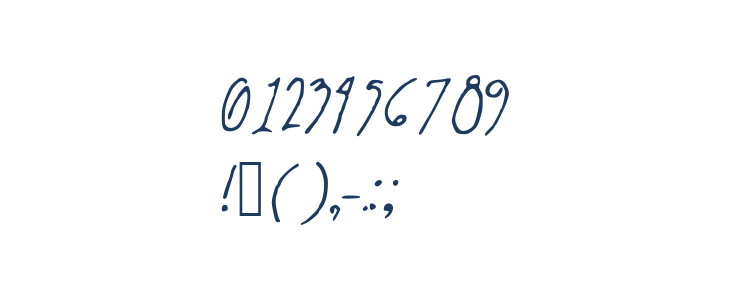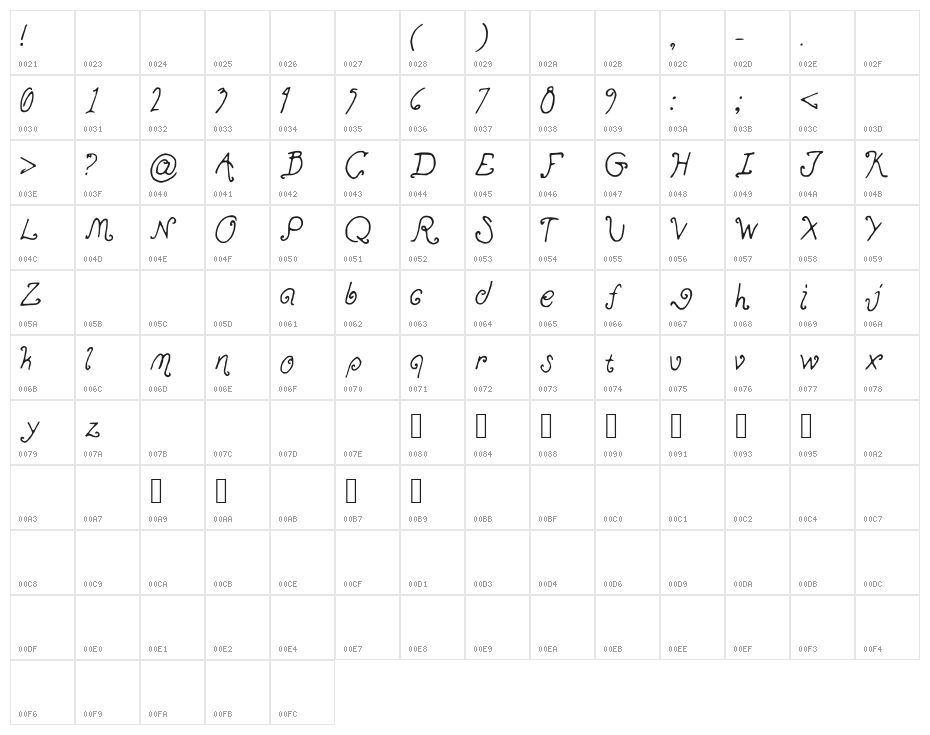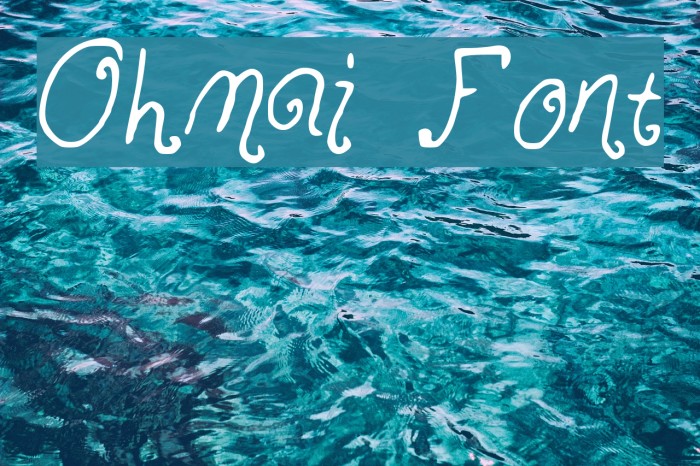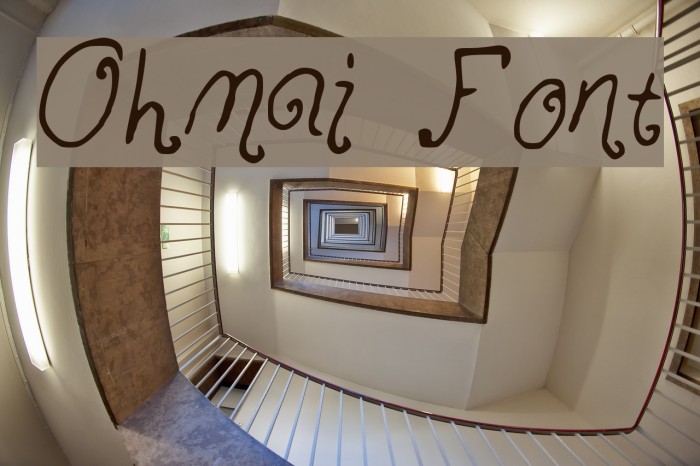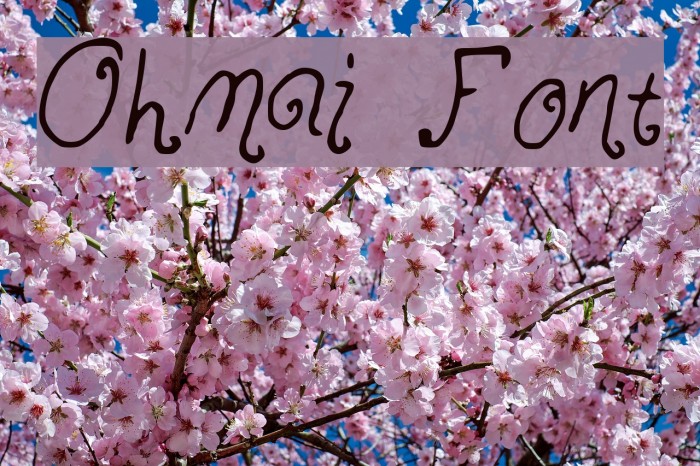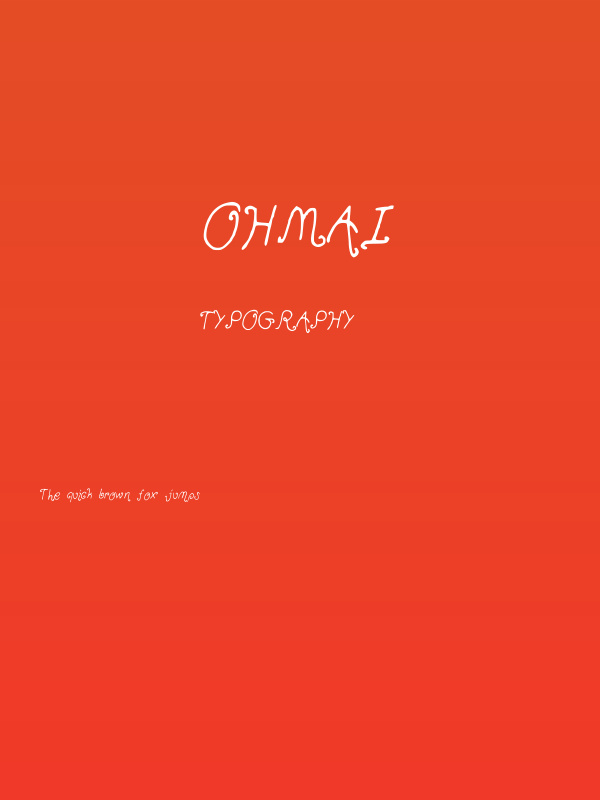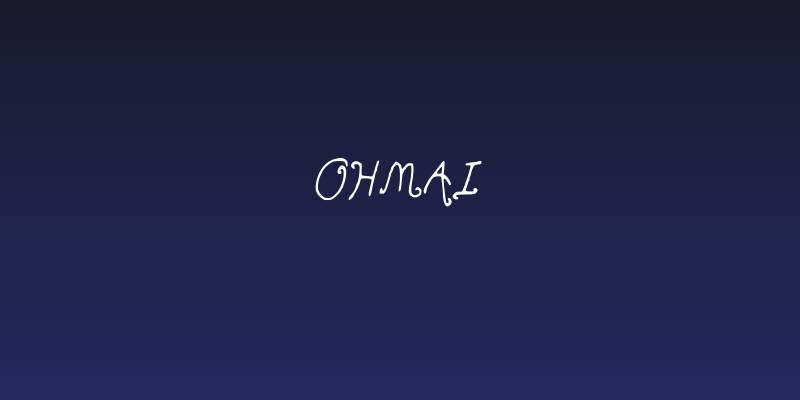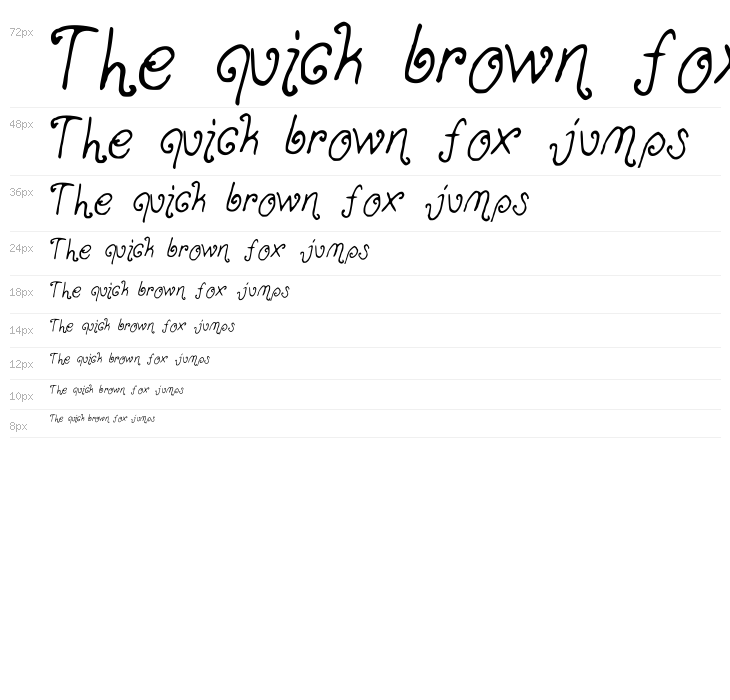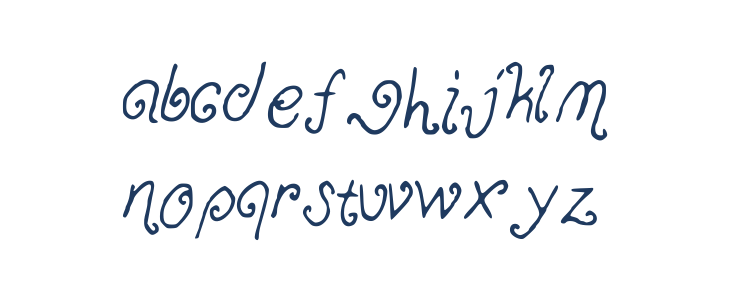
Ohmai Font
Ohmai Description
This font features a whimsical and playful script style with a hand-drawn appearance. The letters have a unique, flowing quality with slight curls and loops that give them a lively character. The uppercase letters are distinct with varying heights and widths, while the lowercase letters maintain a consistent flow. Numbers and special characters are designed to match the playful nature of the alphabet, making them suitable for creative and informal applications. The overall design is light-hearted and artistic, perfect for adding a touch of personality to any project.